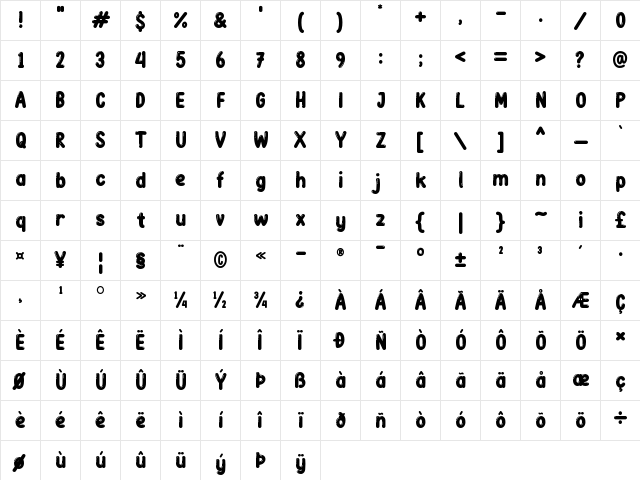
Bubble Bobble Regular
| Designer | Almarkha type 2020 - Abdul Malik Wisnu |
Design Context for Bubble Bobble Typeface
Bubble Bobble trades formality for fun, with bouncy, characterful letterforms that bring warmth and energy to any project.
Font Pairing: Pairs well with a rounded or humanist sans for body copy, maintaining the friendly tone without relying on Bubble Bobble to carry extended reading.
Pro Tip: Avoid using Bubble Bobble for long passages of text — it works best for headlines, labels, and short calls to action.